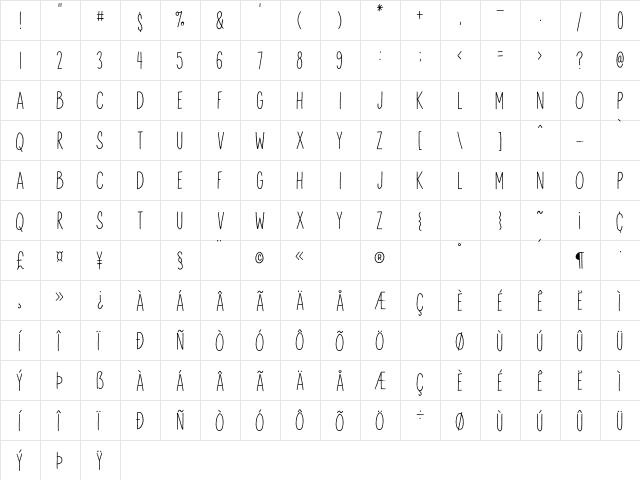
Anitype Redwood 2
Design Context for Anitype Redwood Typeface
Anitype Redwood echoes the hand-painted signage and woodblock typography of the American frontier, with a warm, rugged personality.
Perfect for barbecue restaurants, country music branding, vintage poster design, and rustic packaging.
Font Pairing: Combine Anitype Redwood with a simple slab or neutral sans — period-accurate companions reinforce the vintage feel without competing for attention.
Pro Tip: Pair Anitype Redwood with aged textures or distressed backgrounds to amplify its vintage personality.